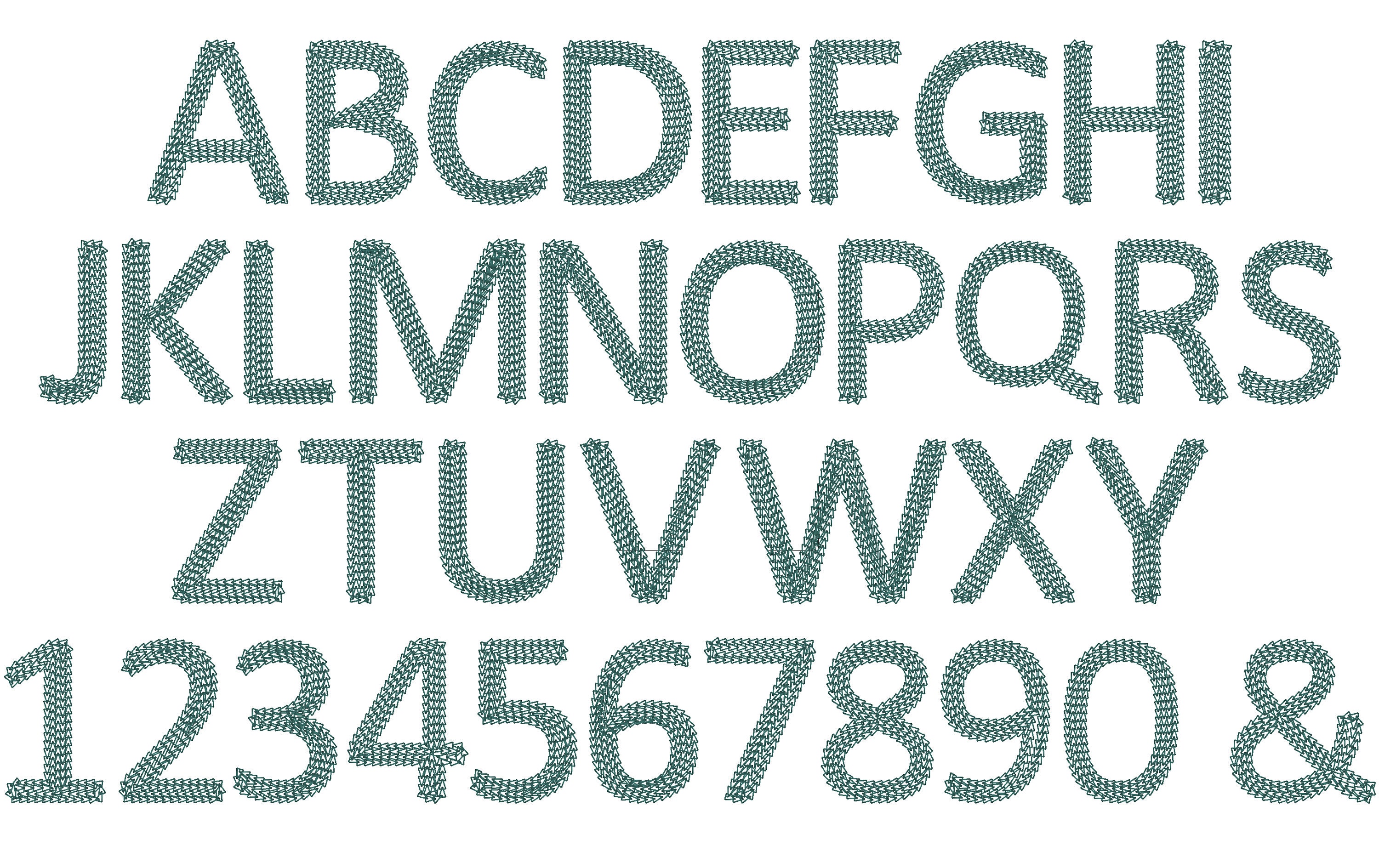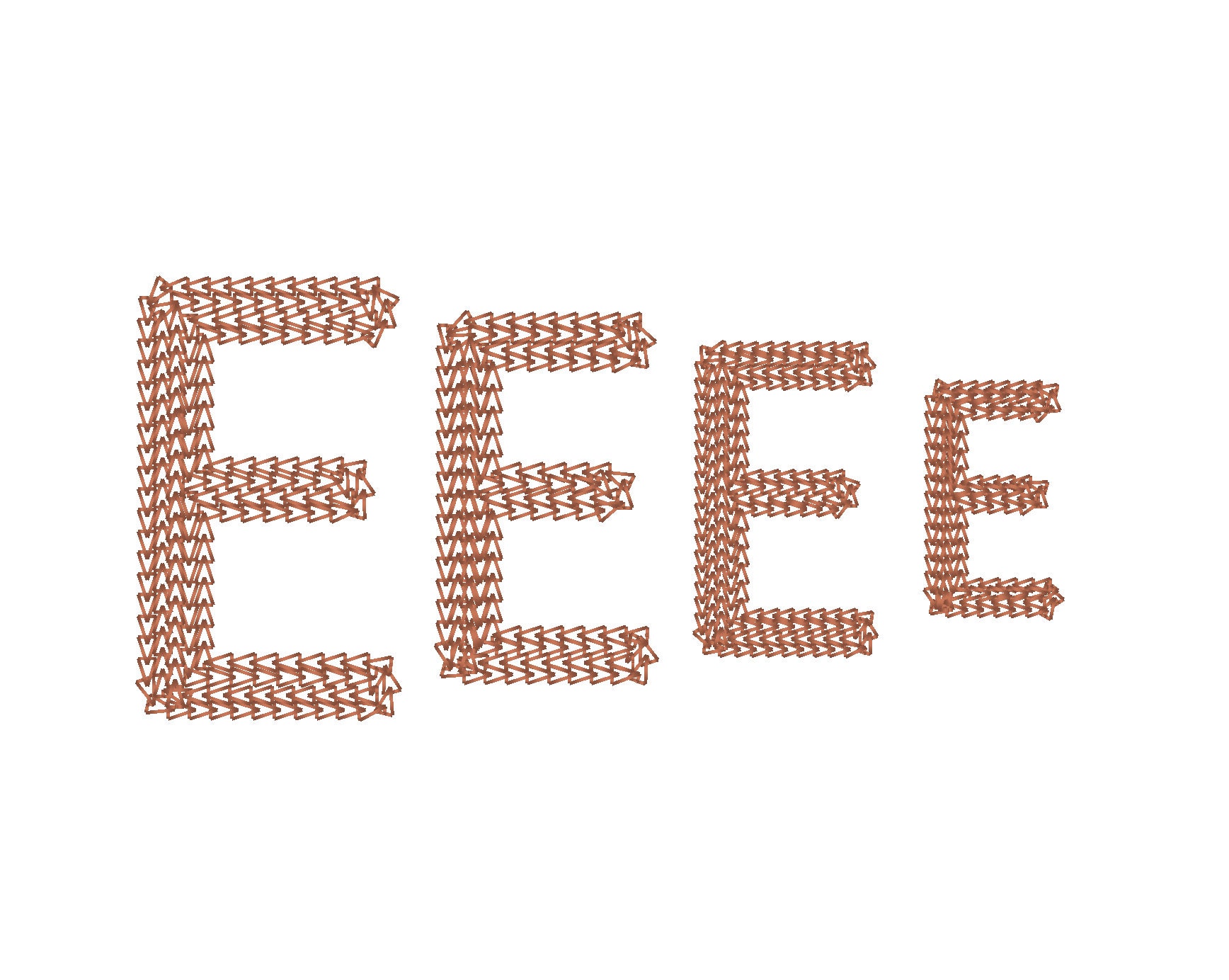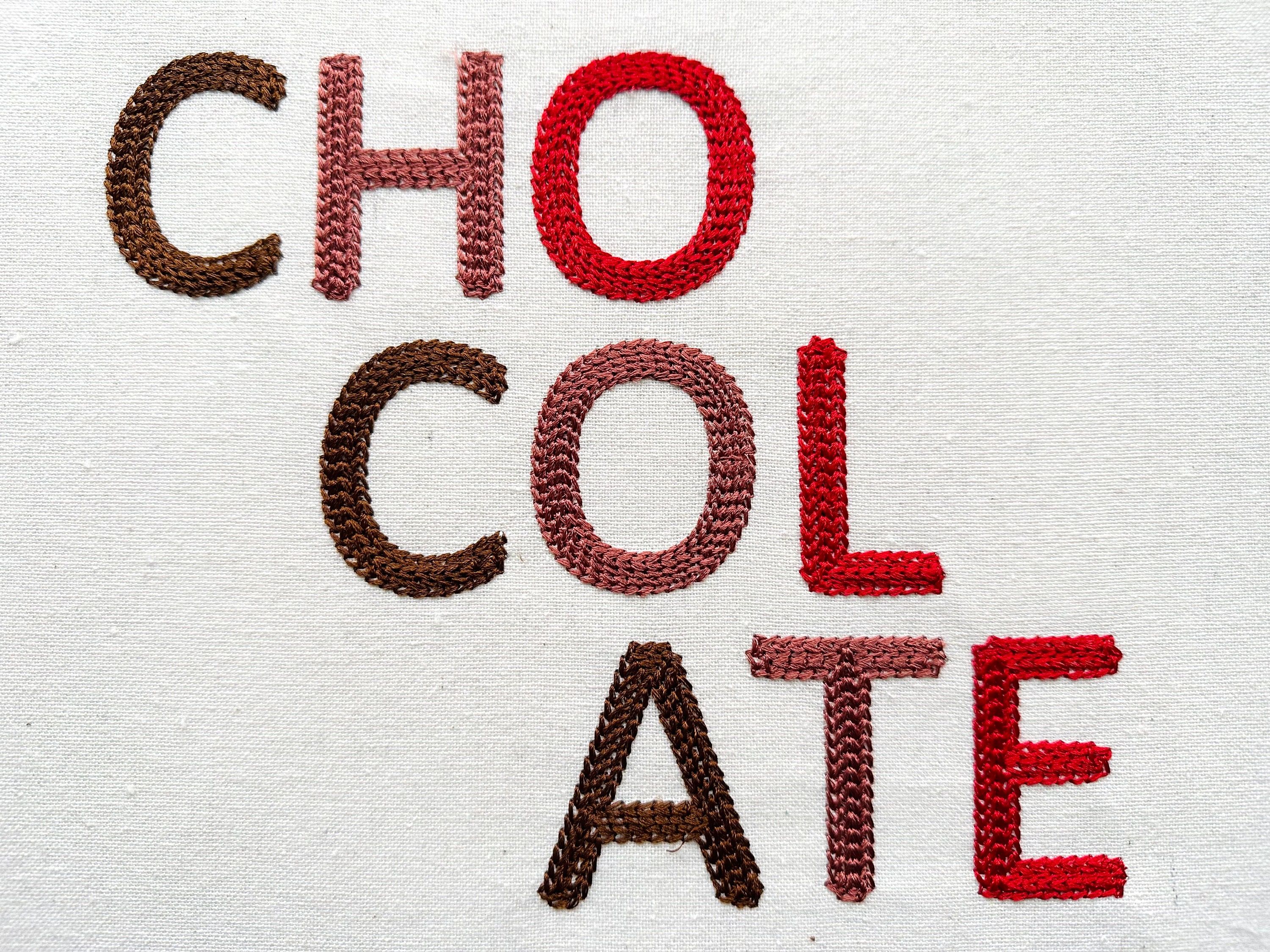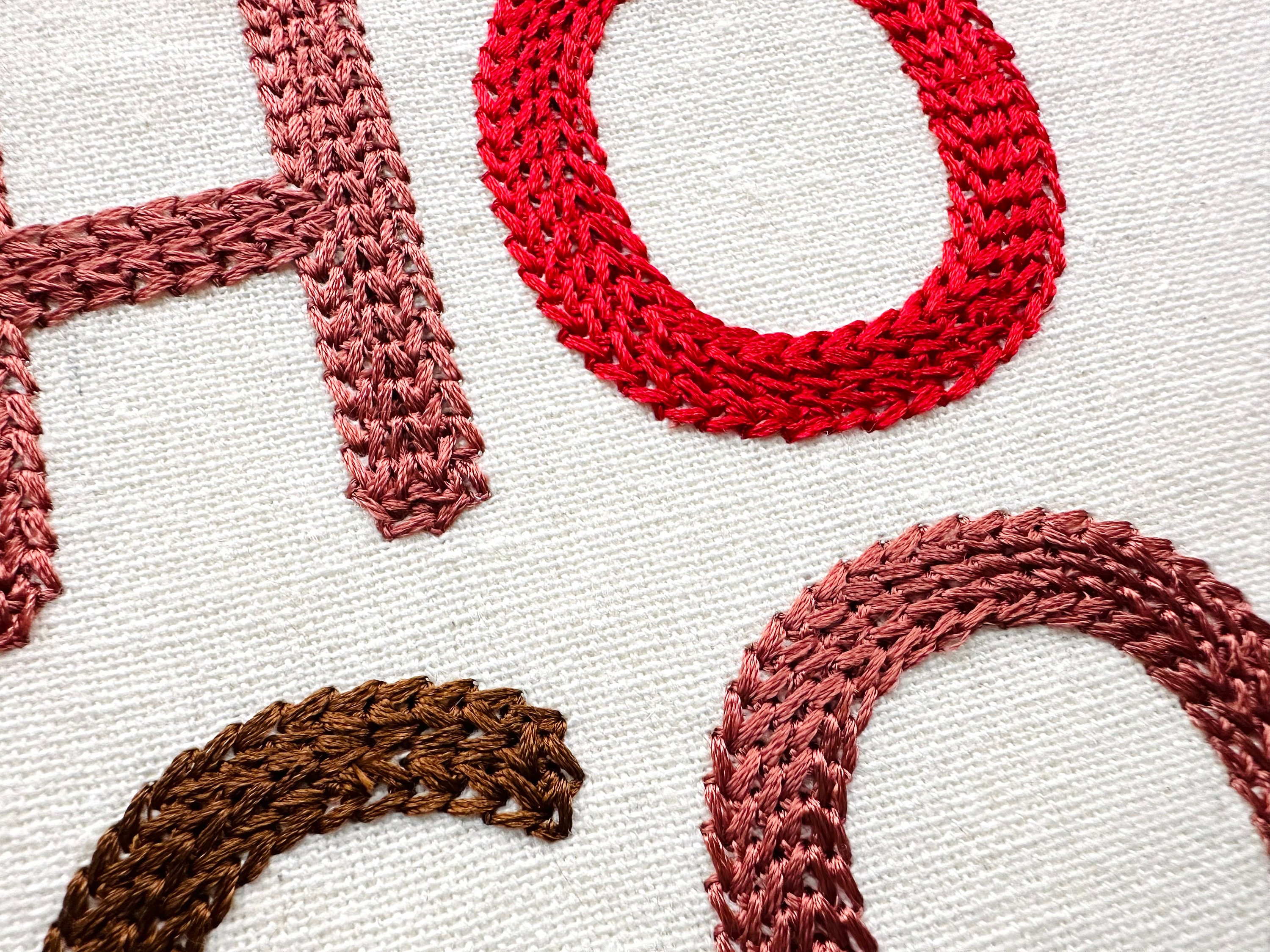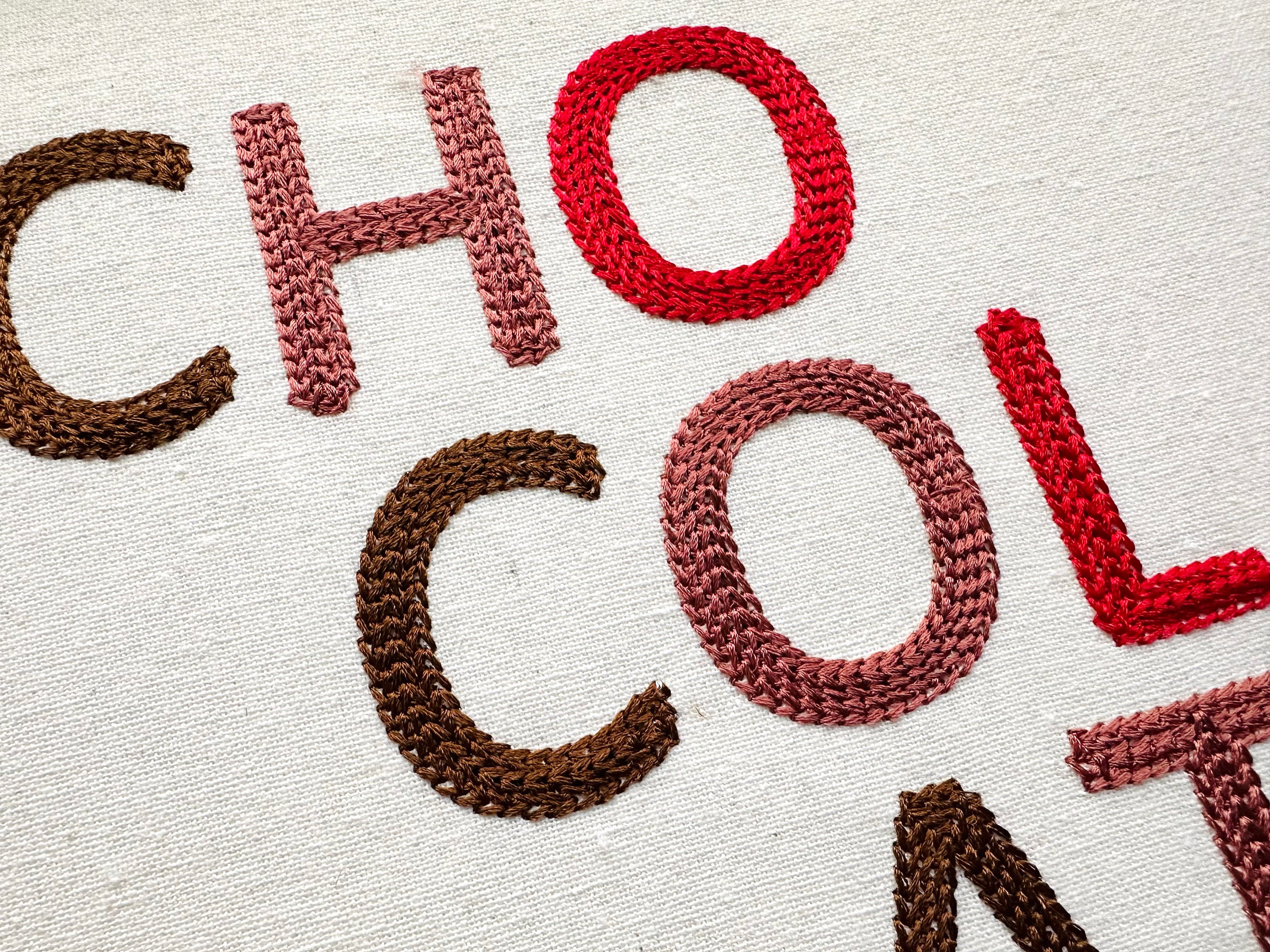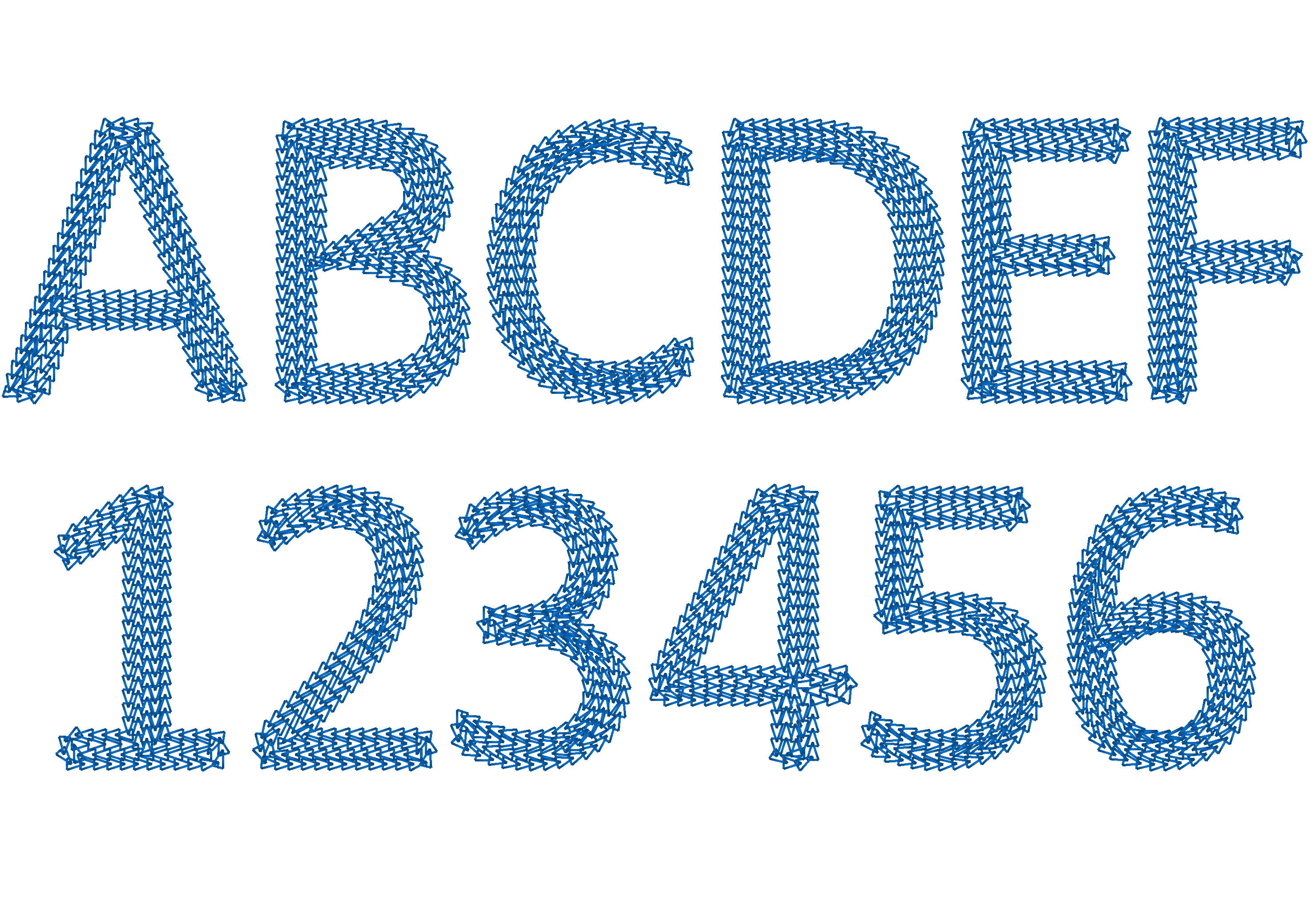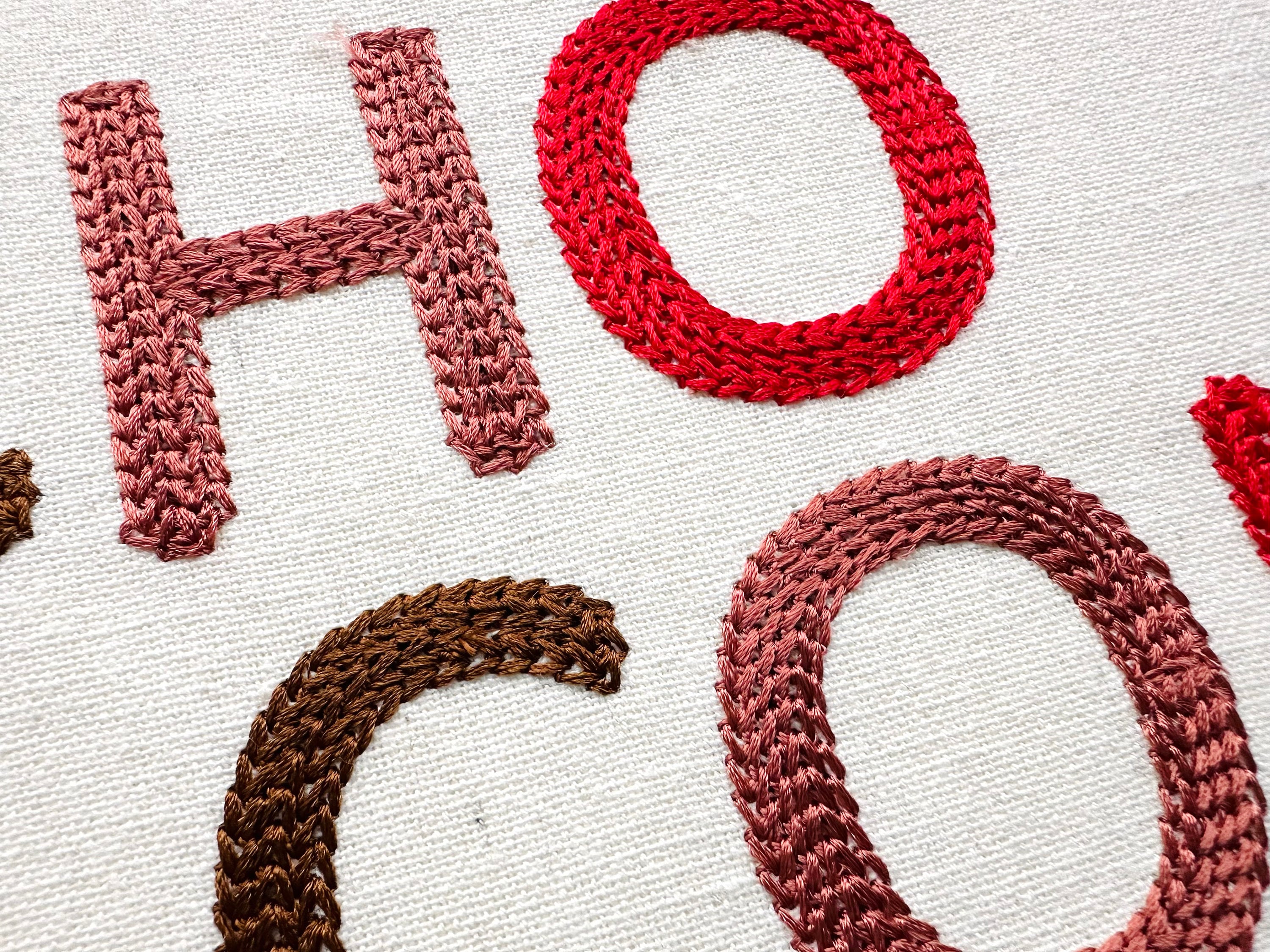
Mini Chain Font hand stitch effect Chain Block Font machine embroidery designs alphabet letters numbers monogram sizes 1.4 up to 2.5inch, BX included
The whole alphabet A-Z uppercase, numbers 0-9, and ampersand &